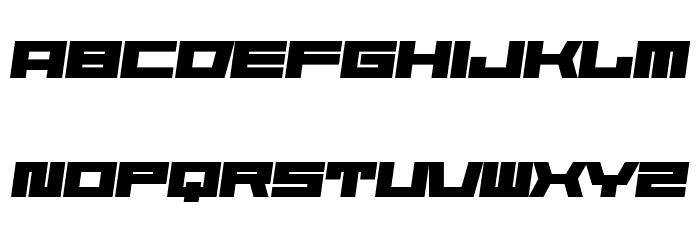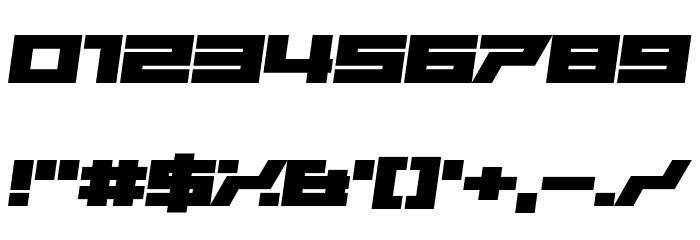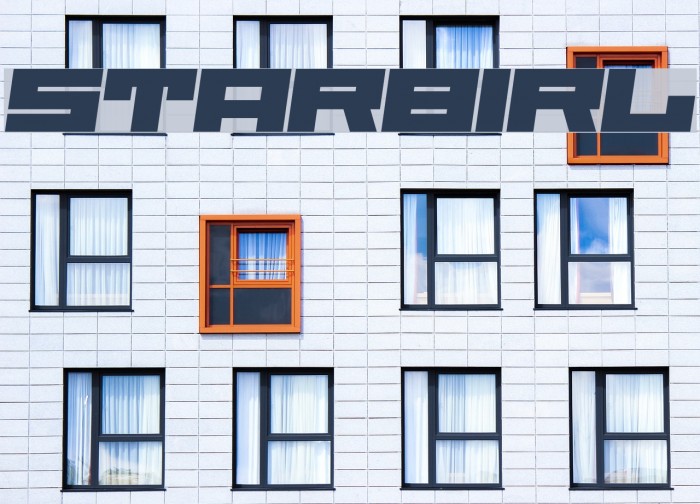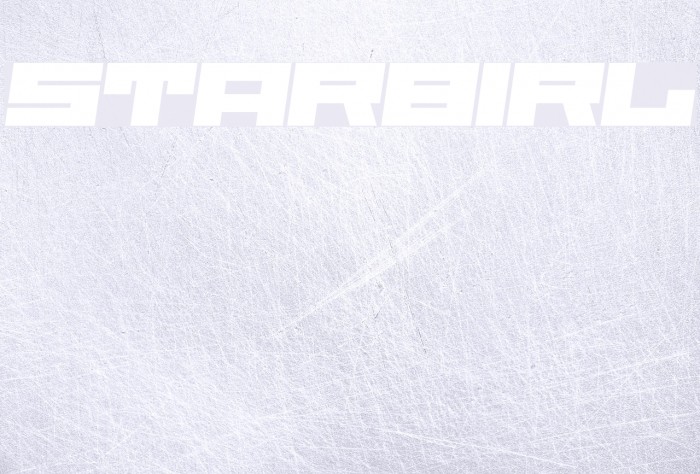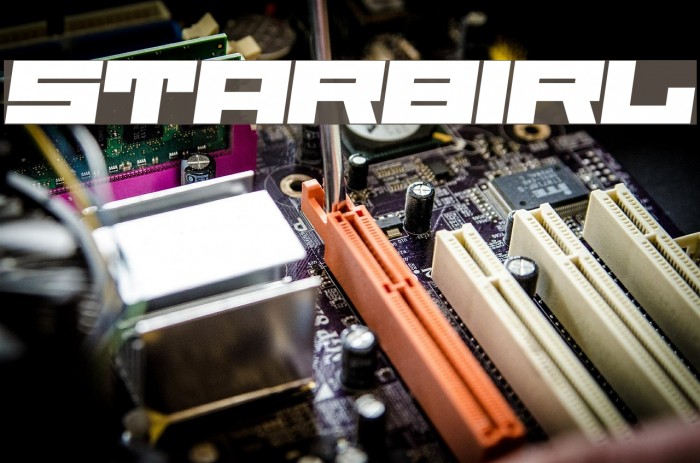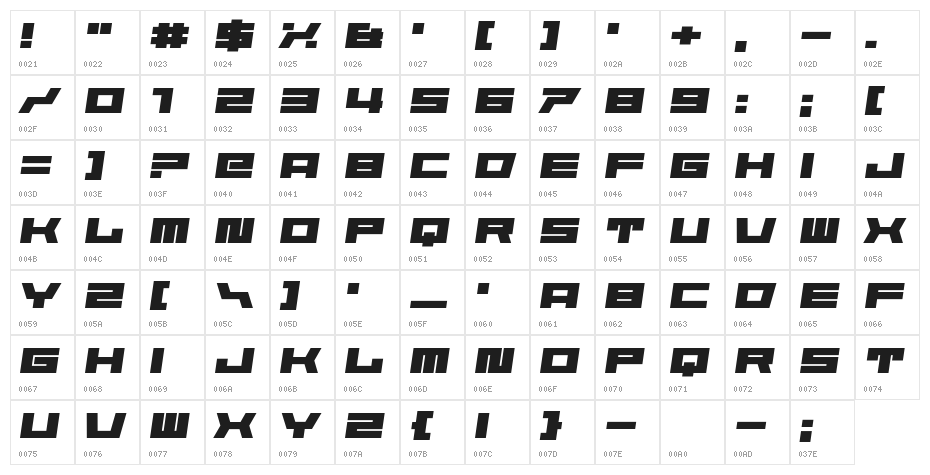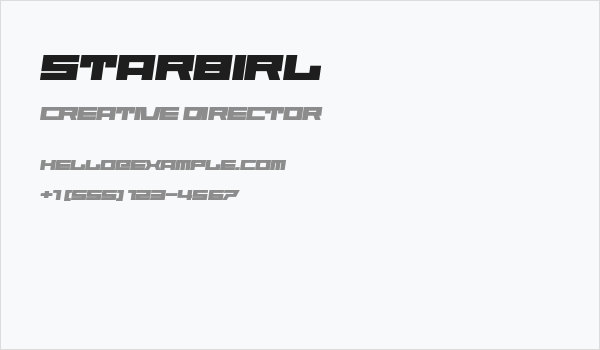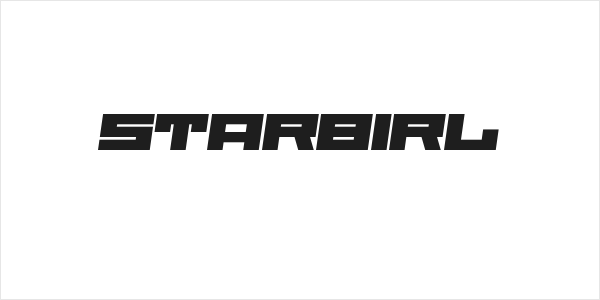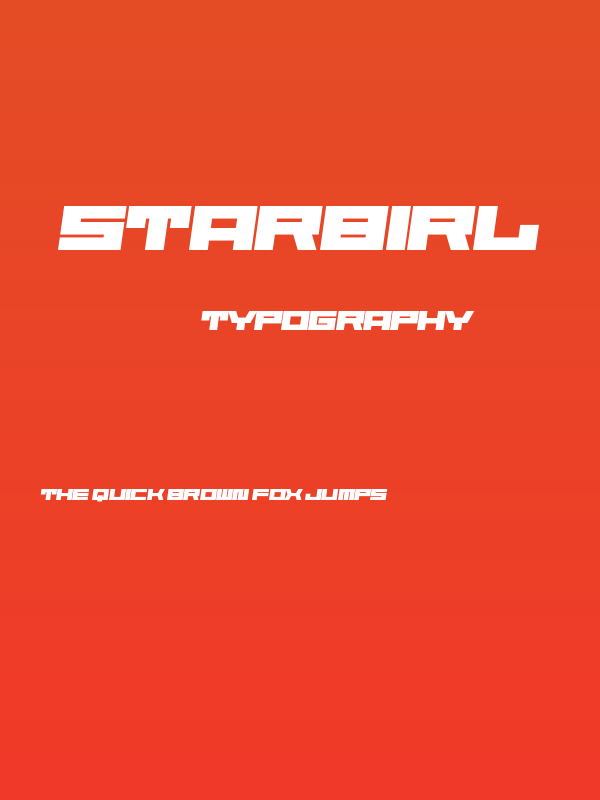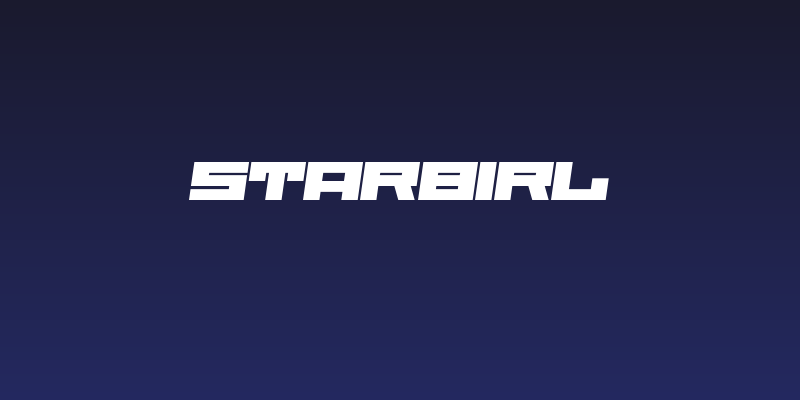
Starbirl Font
This font features a bold and futuristic design with a strong geometric influence. The characters are constructed with sharp angles and straight lines, giving it a dynamic and modern appearance. The uppercase and lowercase letters maintain a consistent style, with the uppercase being slightly more pronounced. The numbers and special characters follow the same design principles, ensuring uniformity across all glyphs. The font's boldness and angularity make it stand out, suitable for projects that require a strong visual impact.
A bold, futuristic font with geometric angles and strong visual impact.
- Proposed Projects: Ideal for sci-fi themed designs, video game titles, posters, and branding that requires a modern and bold aesthetic.
- Overall Style: Futuristic, Modern